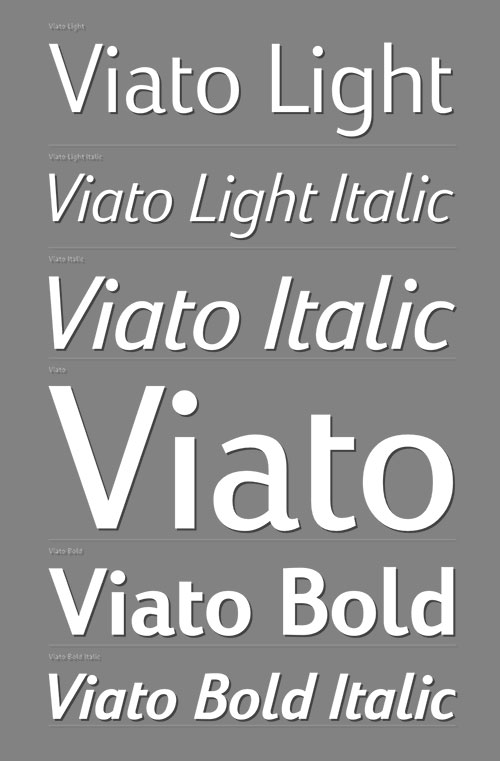
- Functionality is the key factor when choosing a typeface for corporate use, and the Viato font family delivers functionality on several fronts. It has exceptional legibility at text sizes but is recognizable and distinctive when used big and bold. Corporate communications universally aim to attract customers to a business. With this in mind, Viato’s design is warm, friendly and inviting thanks to the open proportions and character structures. Tapering terminals and some unusual character treatments ensure that the Viato font family has a unique appearance that is instantly recognizable. The Standard Edition includes a complete Latin A Extended character set. Hebrew and Corporate Editions of the font are also available and include additional scripts.